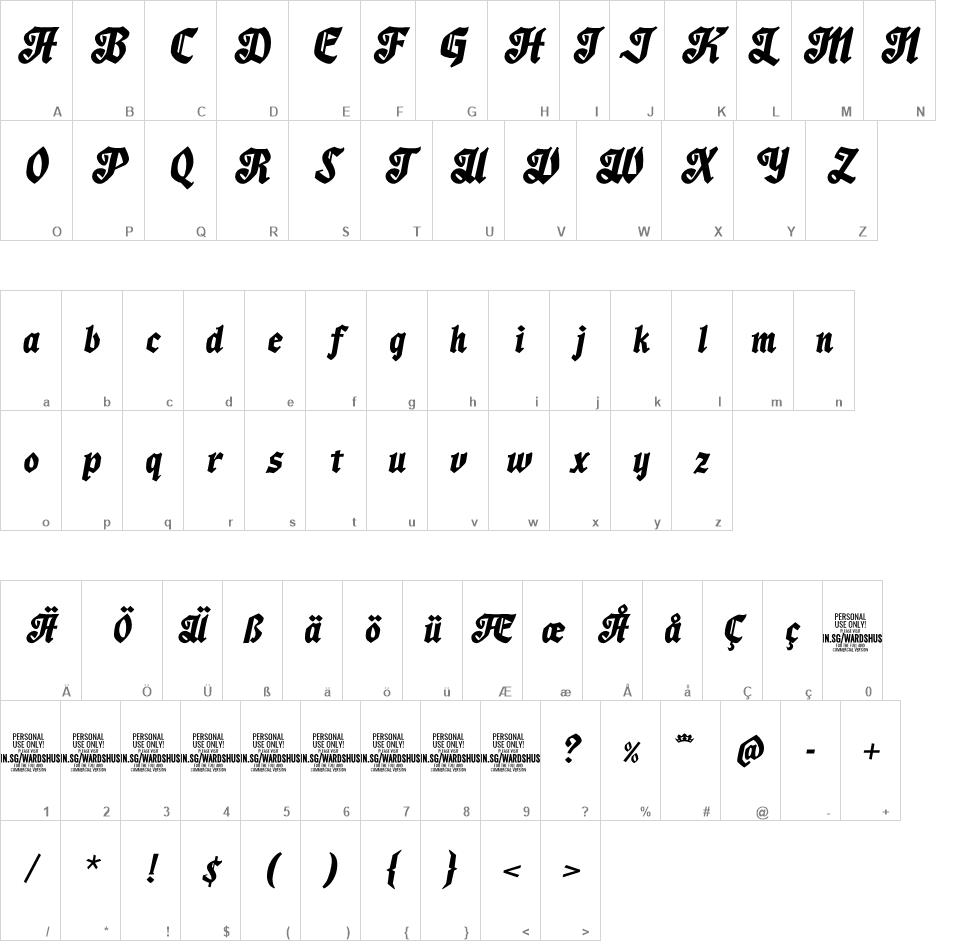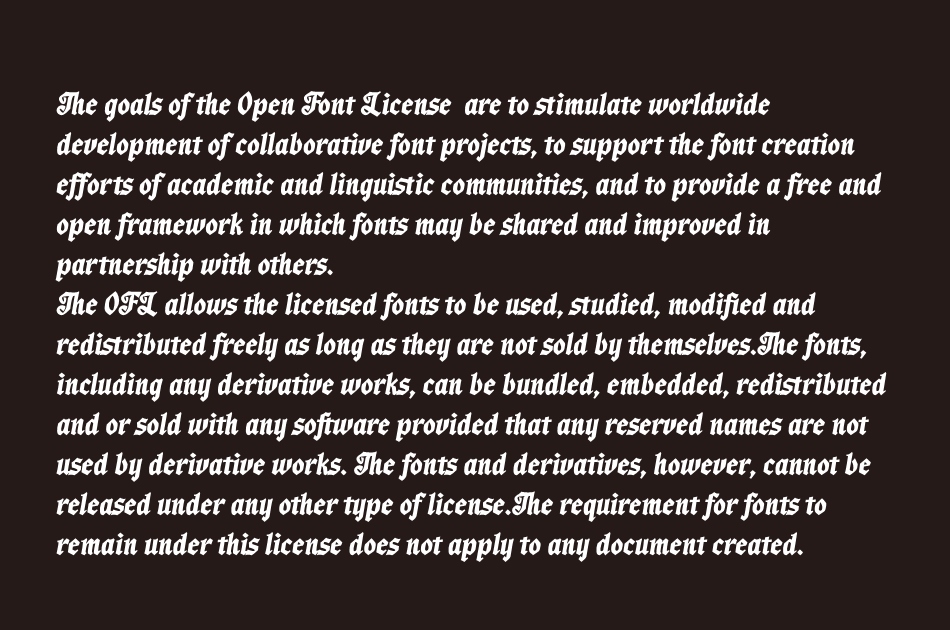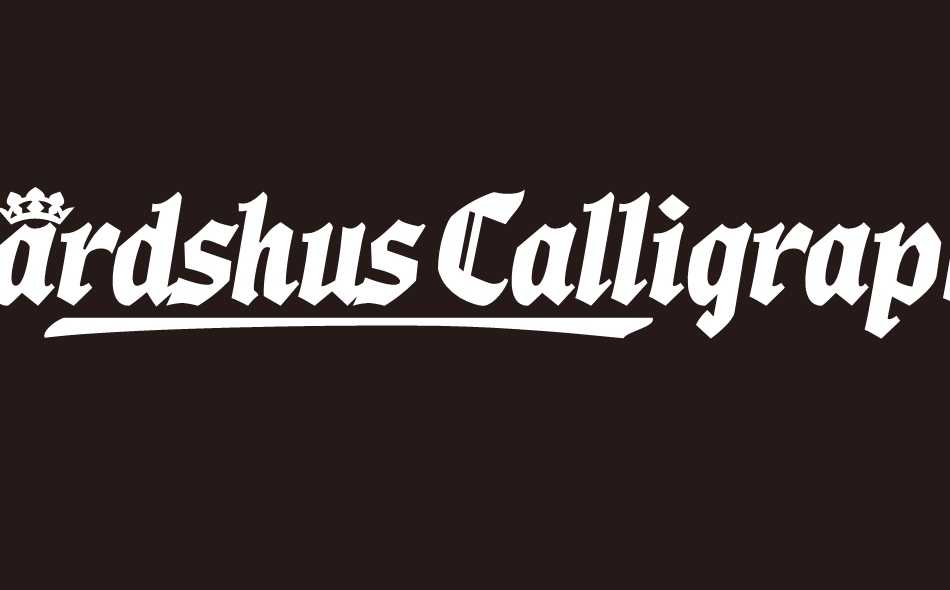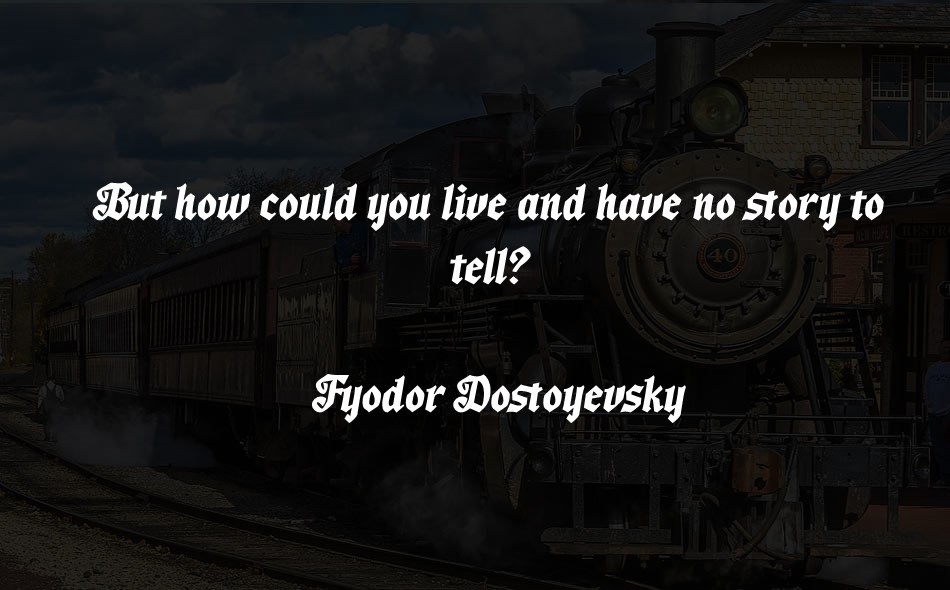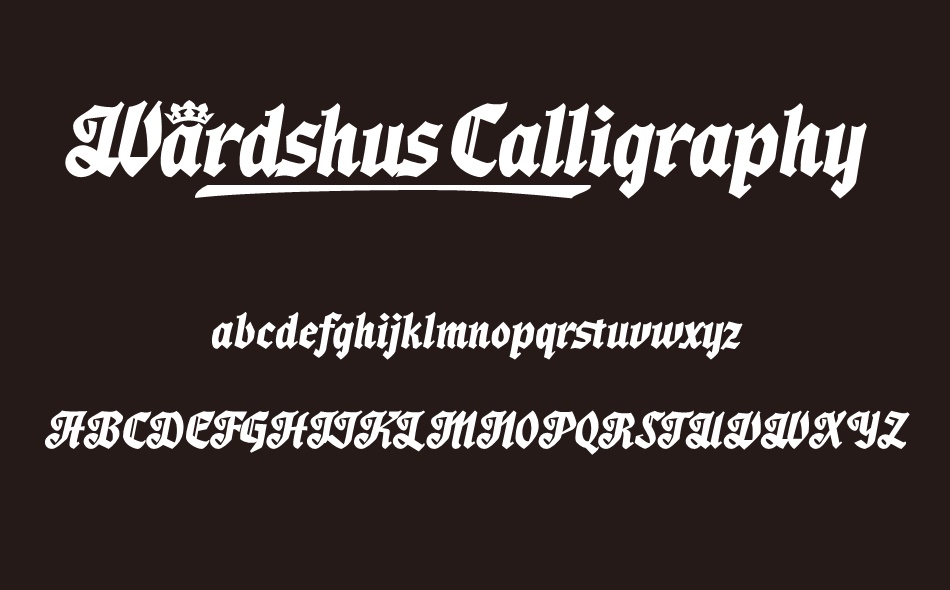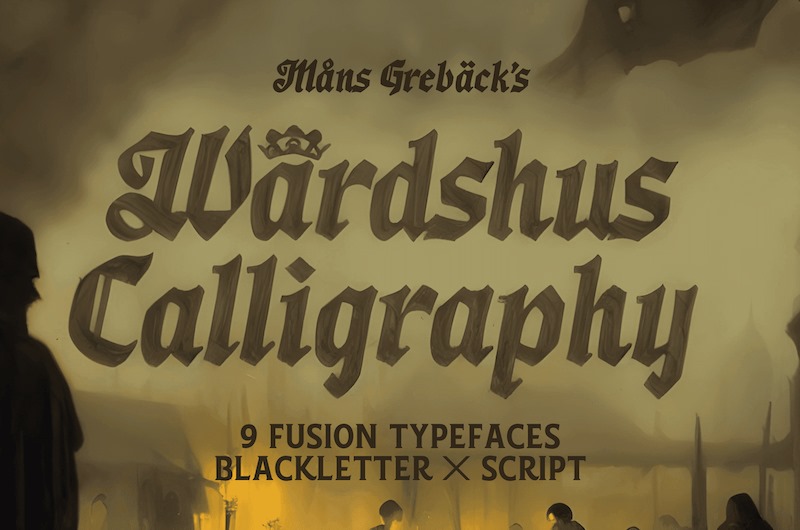
Wardshus Calligraphy font
Wardshus Calligraphy is a unique blend of medieval gothic style and modern script, creating a distinctive and eye-catching blackletter font. The typeface is a testament to the rich artistic history of the past, reimagined for contemporary design projects.
Use # after any letter to make a crown.
Example: Que#en
Use underscore _ anywhere to make a swash.
Example: Kingdom_Heroes
Use multiple underscores to make underlines of different lengths.
Example: Knig___hters
Wardshus Calligraphy font
Wardshus Calligraphy is a unique blend of medieval gothic style and modern script, creating a distinctive and eye-catching blackletter font. The heavy, hand-drawn design brings an air of the Middle Ages to your projects, making it perfect for logos, posters, rock or hip-hop music album covers, and other display purposes that require a cool and striking touch.
The beautiful cursive elements add a touch of elegance to the font, while the bold strokes and intricate details give it a strong presence. Wardshus Calligraphy is a testament to the rich artistic history of the past, reimagined for contemporary design projects.
Use # after any letter to make a crown. Example: Que#en
Use underscore _ anywhere to make a swash. Example: Kingdom_Heroes
Use multiple underscores to make underlines of different lengths. Example: Knig___hters
The Wardshus Calligraphy font family includes nine high-quality styles to suit various design needs:
Regular: A well-balanced, classic blackletter script style. Regular Upright: Adds a more controlled, vertical look to the regular style. Regular Italic: Combines the balance of regular with a touch of expressiveness. Bold: A stronger, more assertive version of the script for impactful designs. Bold Upright: Merges the boldness of the bold style with the structure of upright. Bold Italic: A dynamic fusion of the bold style and the energy of italic. Black: The heaviest, most powerful iteration of the blackletter script. Black Upright: Combines the weight of the black style with the upright structure. Black Italic: Adds expressiveness and flair to the intense black style.
Built with advanced OpenType functionality, Wardshus Calligraphy ensures top-notch quality and provides you with full control and customizability. It includes stylistic and contextual alternates, ligatures, and other features to make your designs truly unique. It has extensive lingual support, covering all Latin-based languages, from Northern Europe to South Africa, from America to South-East Asia. It contains all characters and symbols you'll ever need, including all punctuation and numbers.